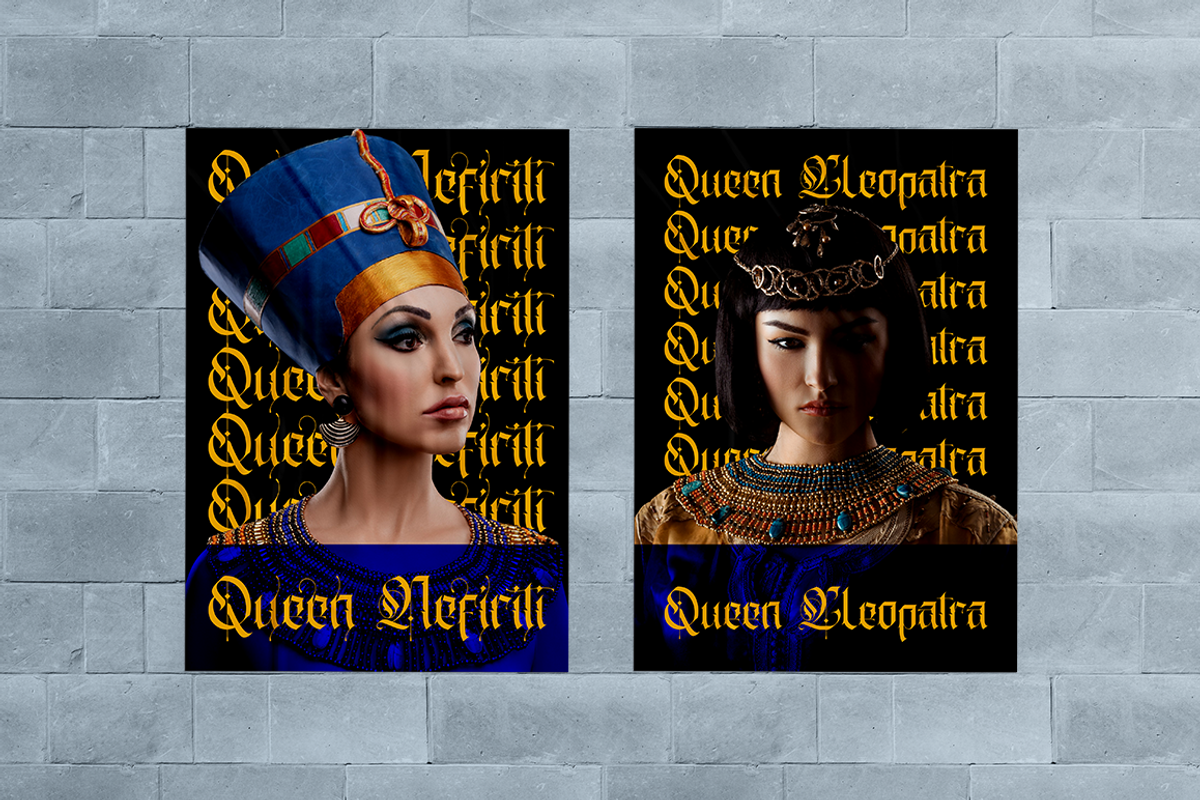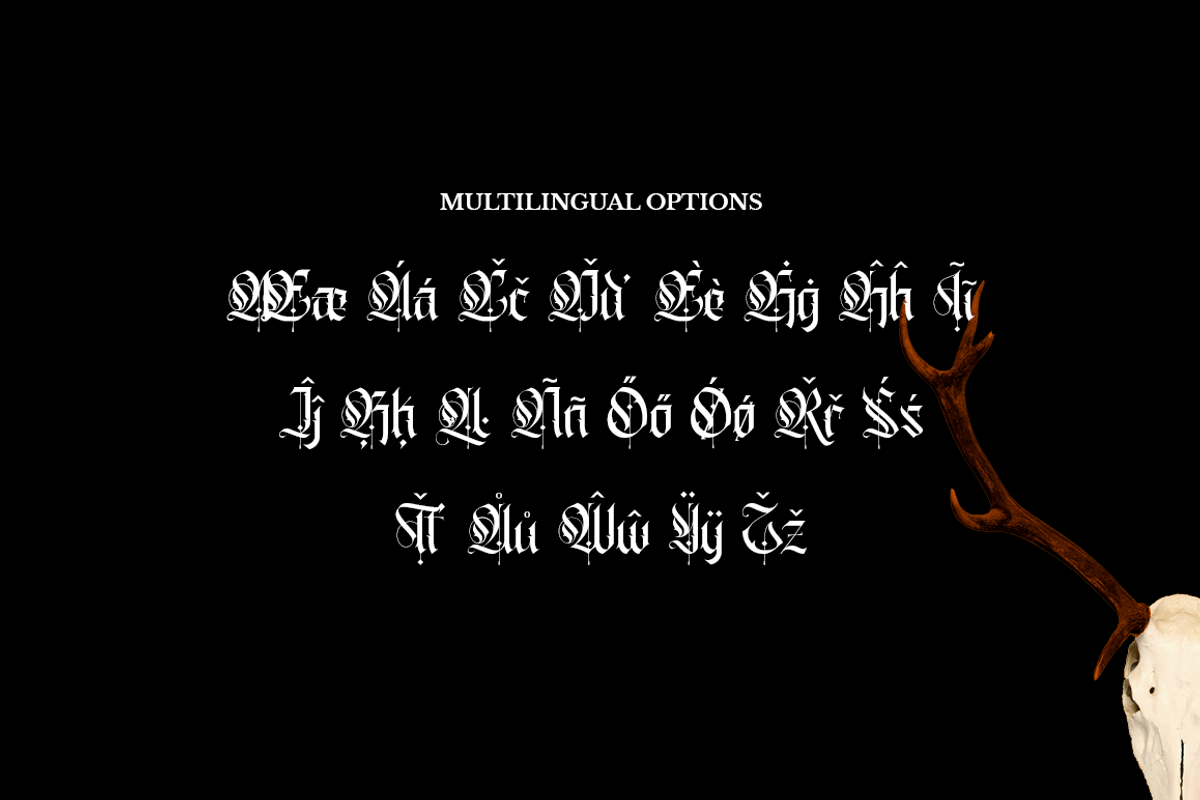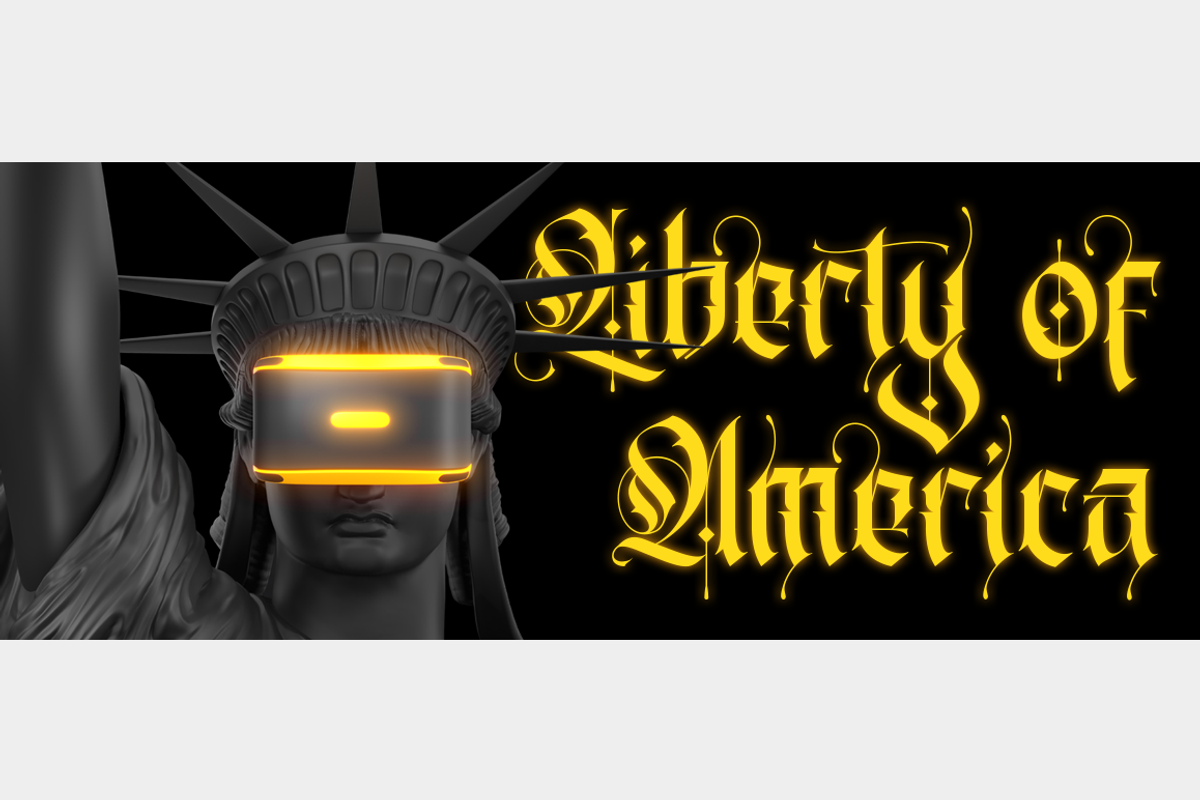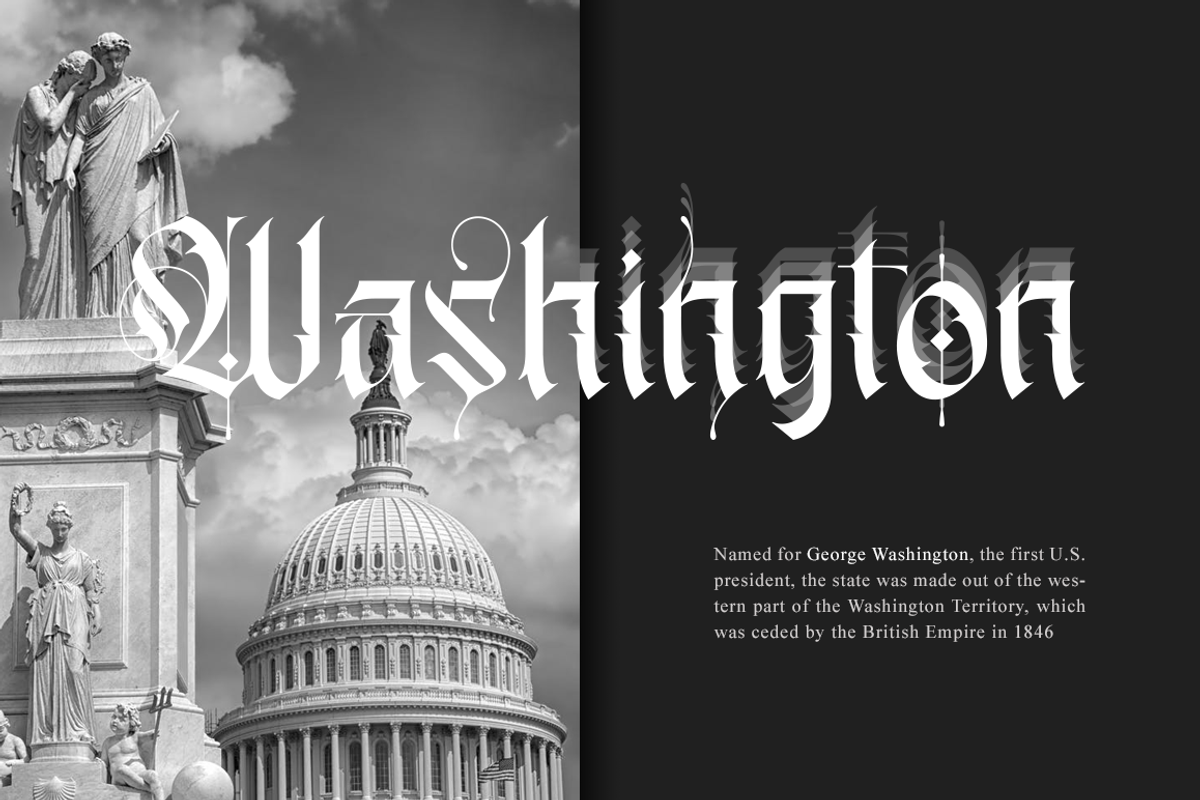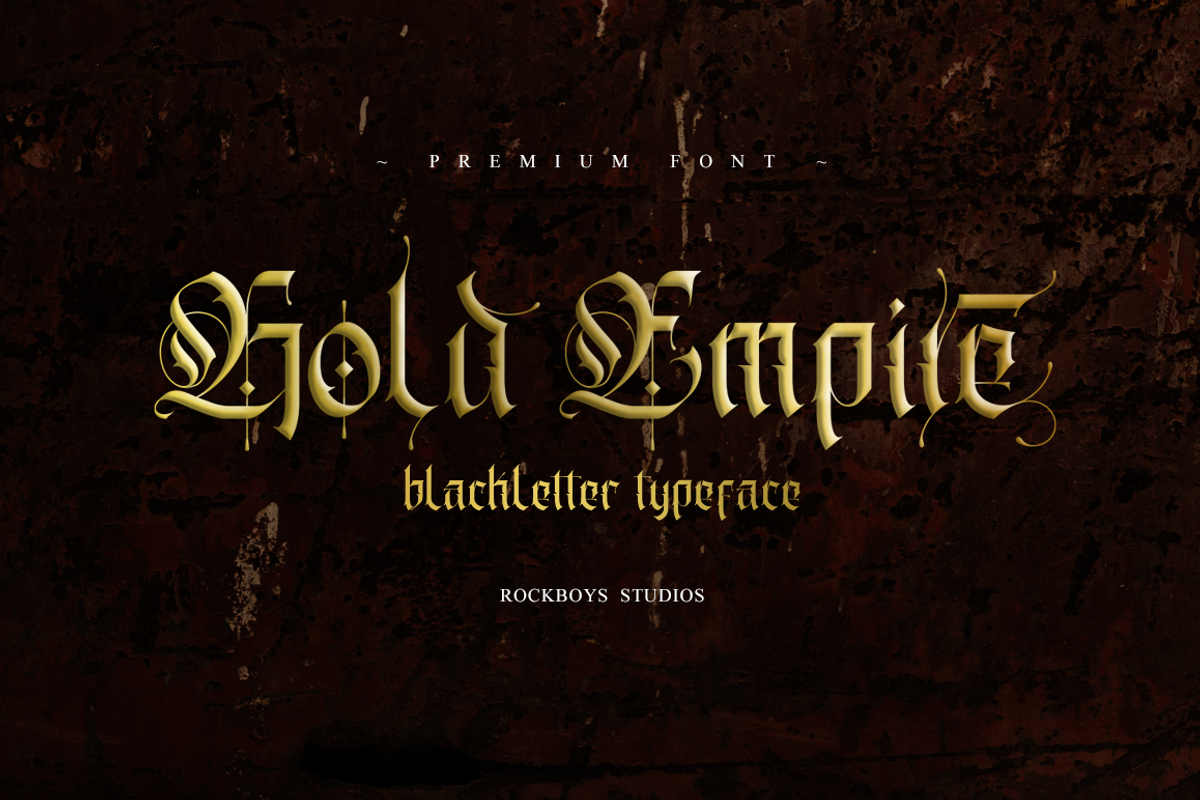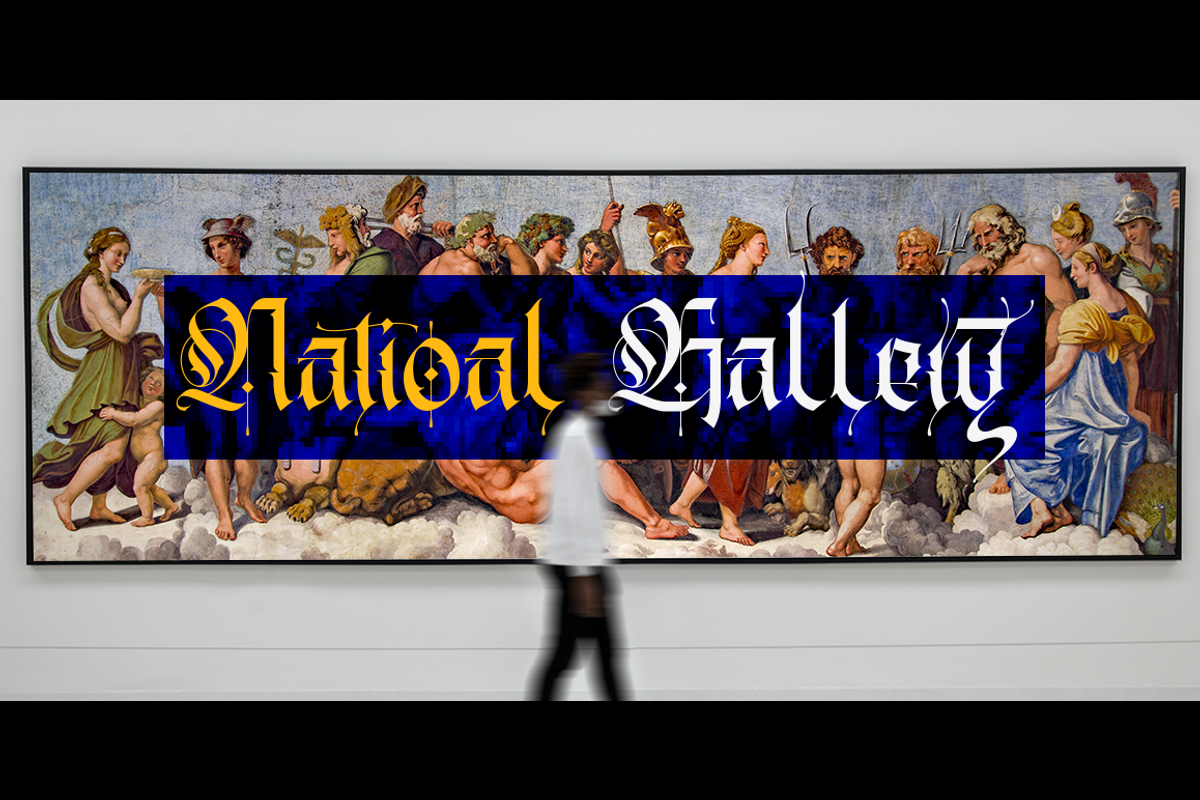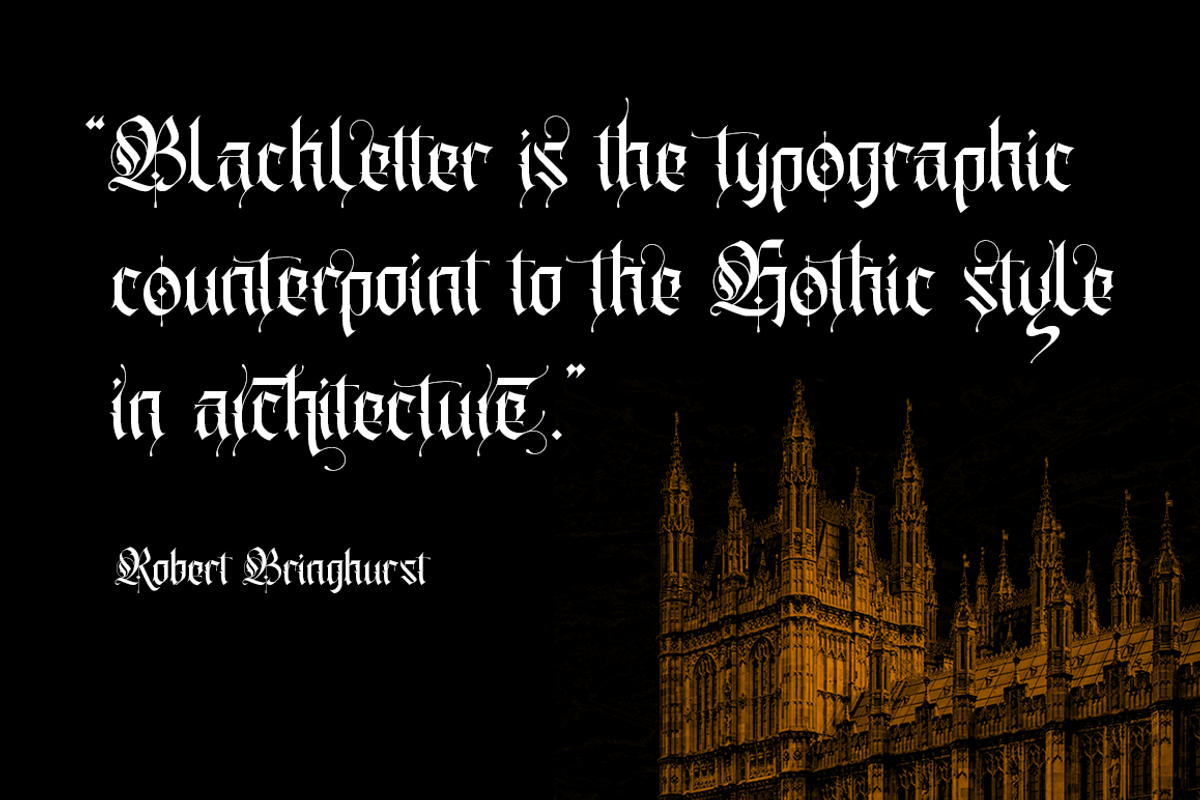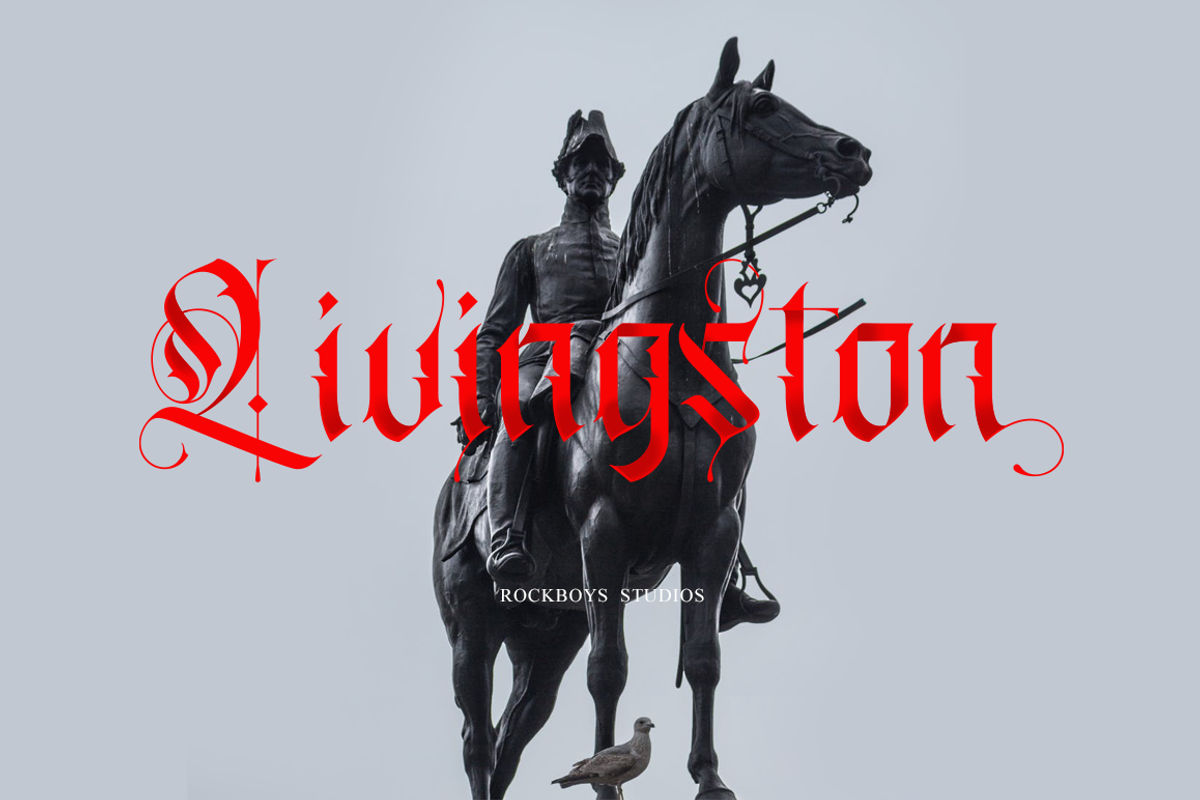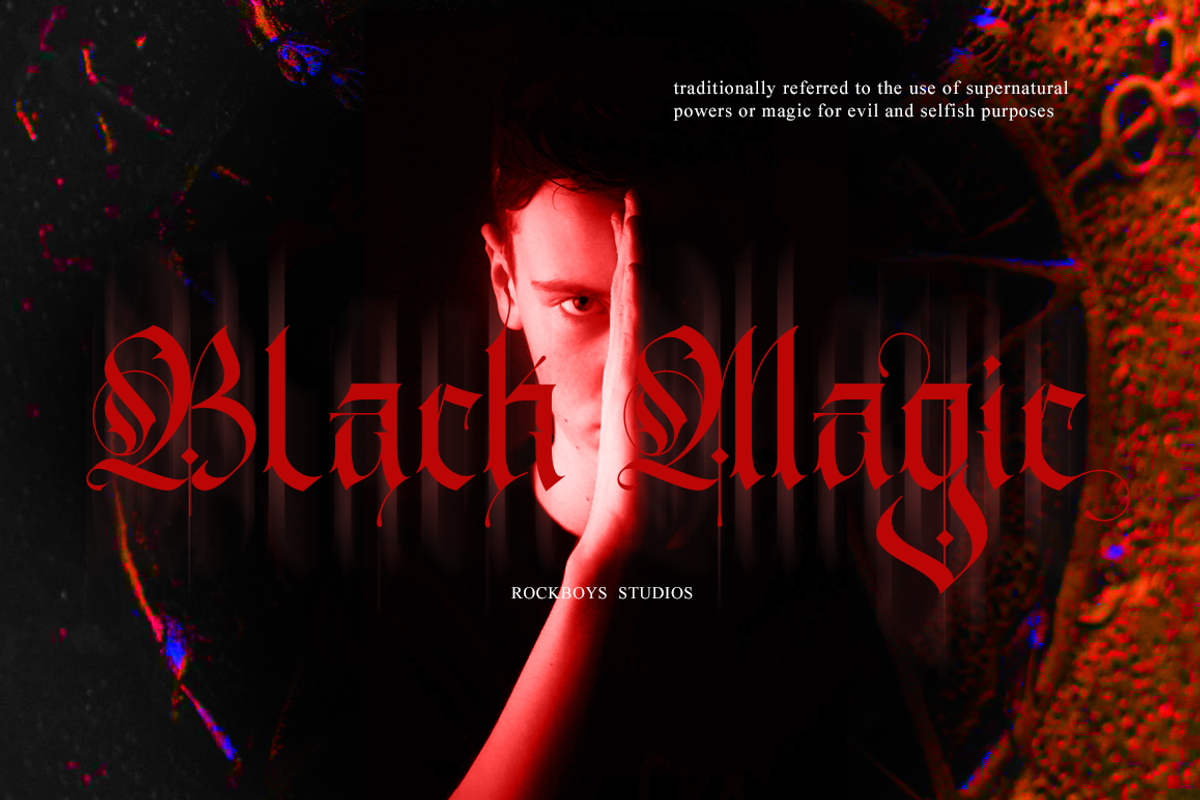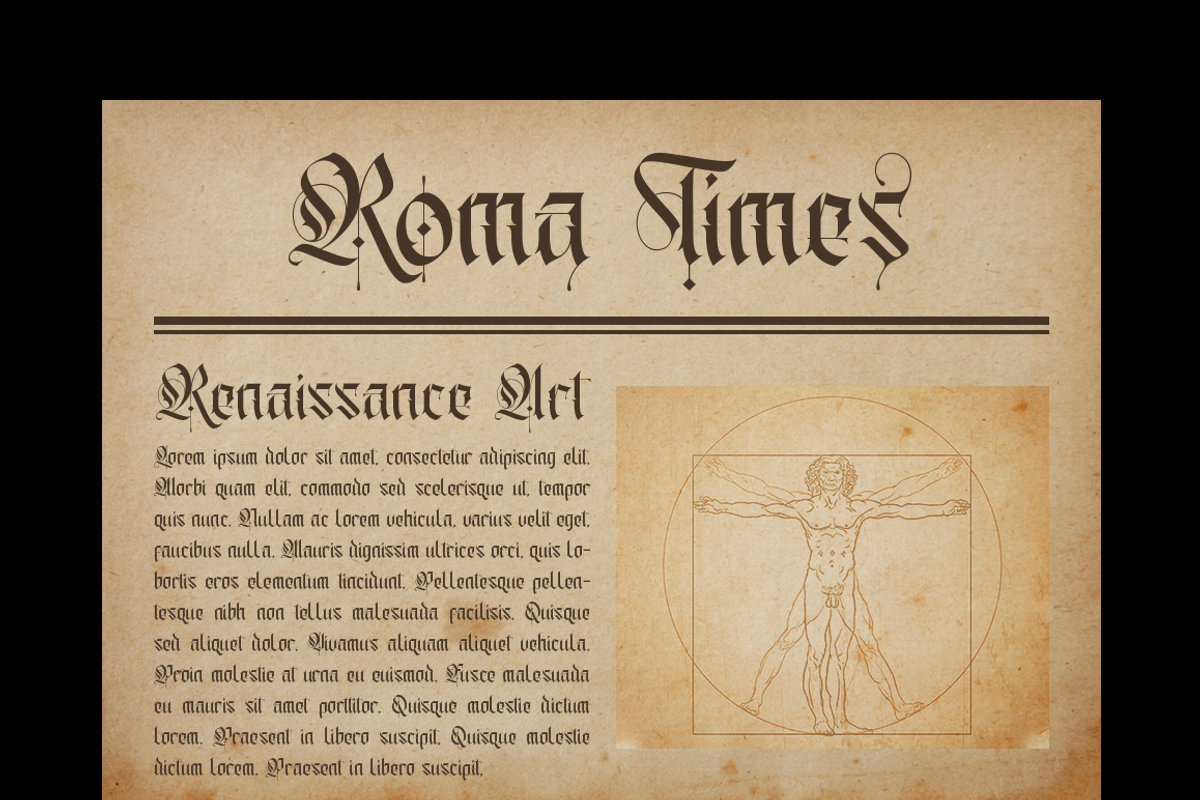
Gold Empire - Blackletter Font
Gold Empire is an incredibly unique and distinct blackletter font. It will add a unique touch to your designs. Use it for tattoo designs, logos, posters, book covers, albums and more!